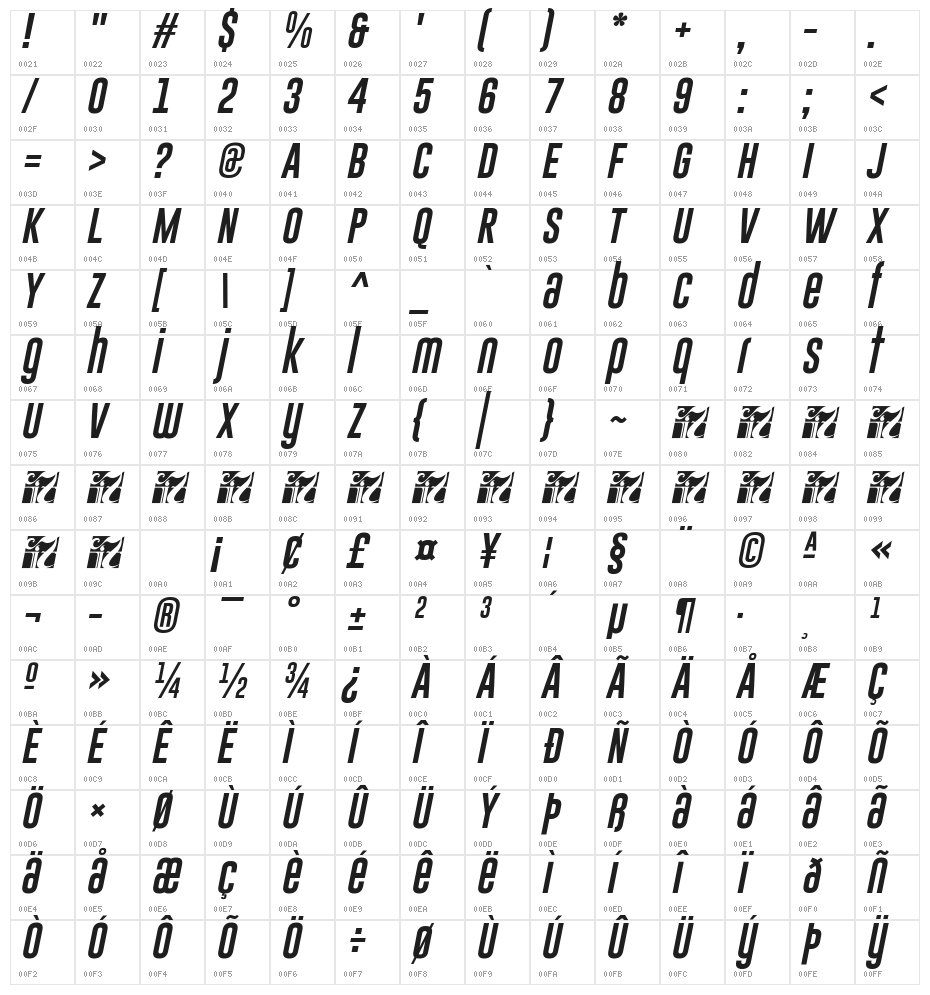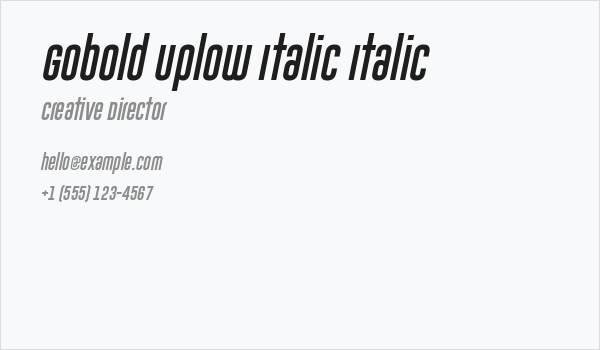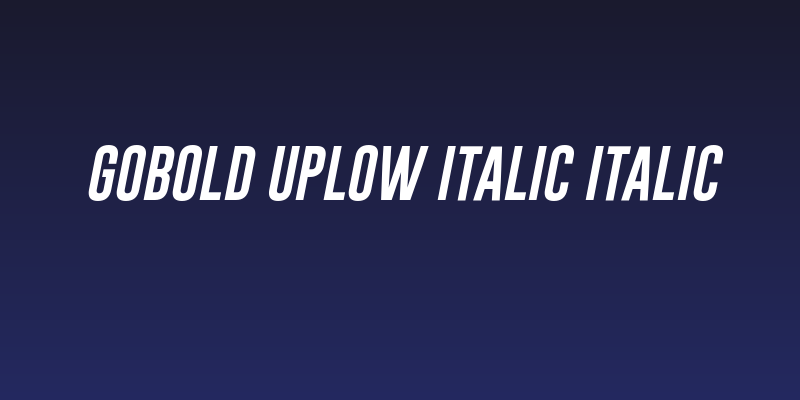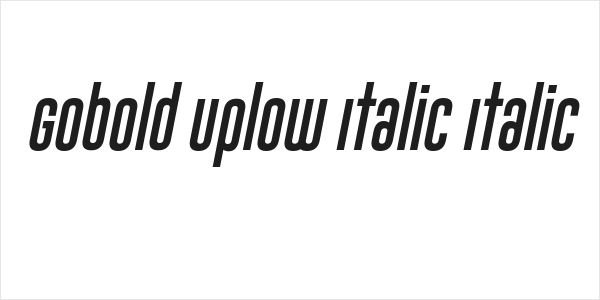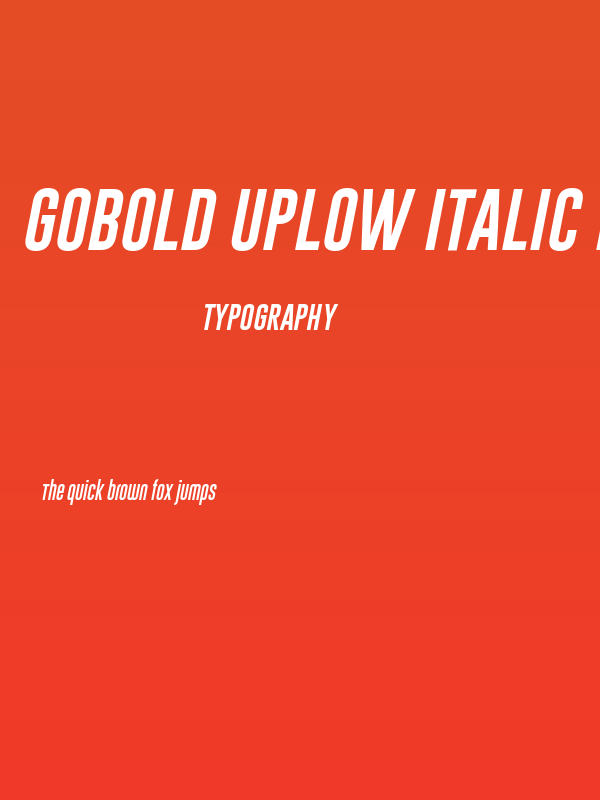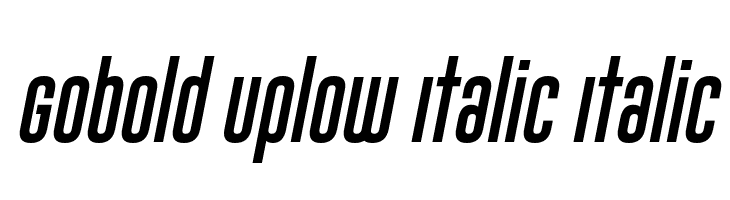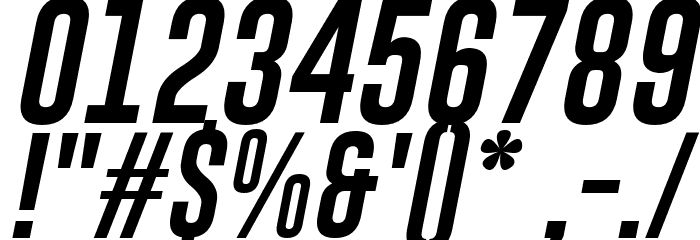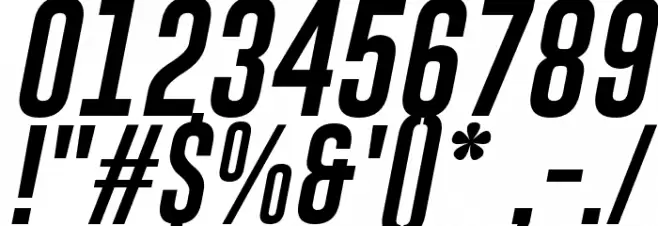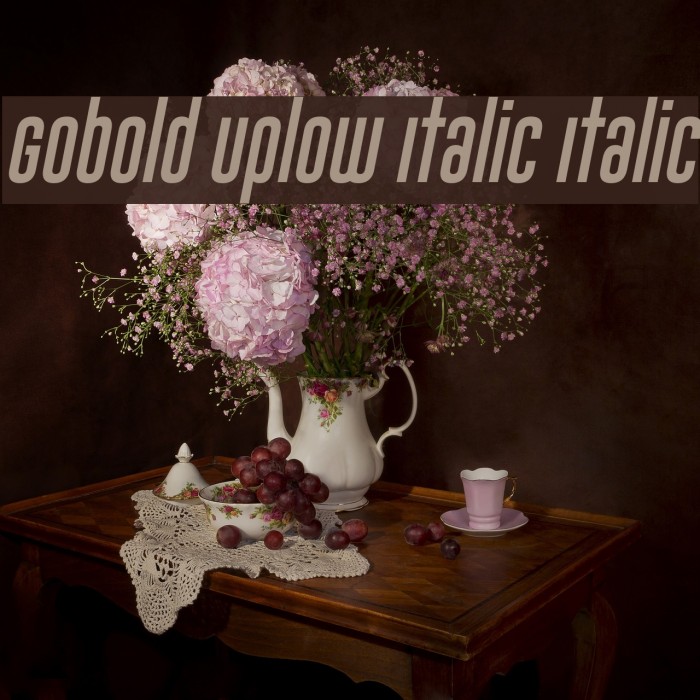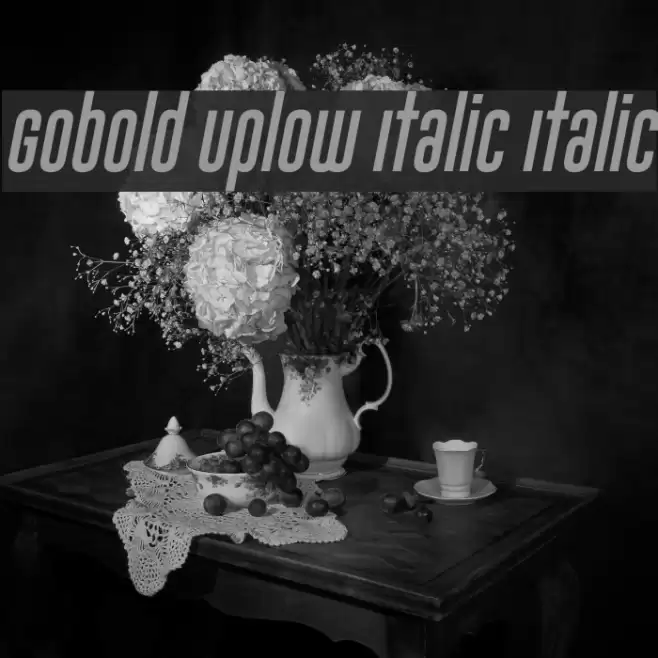
Gobold Uplow Italic Italic Font
Gobold Uplow Italic Italic Description
This font features a bold and dynamic style with a pronounced italic slant, giving it a sense of motion and energy. The characters are tall and narrow, contributing to a condensed appearance that maximizes space efficiency. The strokes are consistent in thickness, providing a uniform and cohesive look. The uppercase and lowercase letters maintain a strong visual harmony, while the numerals and special characters are designed to complement the overall aesthetic. This font's modern and sleek design makes it suitable for a variety of contemporary applications.
| Proposed Projects | Ideal for sports branding, dynamic posters, modern advertising, and eye-catching headlines. |